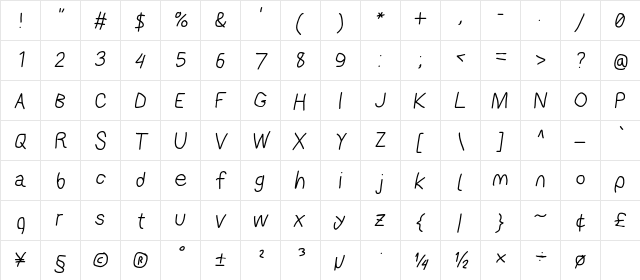
AppleStorm Ita
Design Context for AppleStorm Typeface
AppleStorm takes a measured approach to typography — its balanced proportions and neutral character make it a reliable workhorse for both digital and print work. The slanted form adds forward momentum and visual energy.
Pro Tip: Use AppleStorm for emphasis, pull quotes, and subheadings where its slanted energy can add rhythm to the layout.